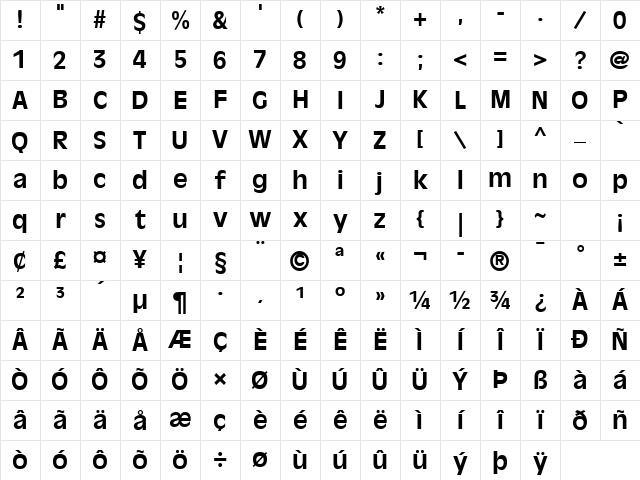
Antique Olive Roman wears its vintage influences proudly, with letterforms that recall mid-century signage, classic packaging, and nostalgia-driven design. Its bold stroke weight gives it real presence on the page.
Font Pairing: Combine Antique Olive Roman with a simple slab or neutral sans - period-accurate companions reinforce the vintage feel without competing for attention.
Pro Tip: Lean into Antique Olive Roman's period character by pairing it with aged paper textures, muted colour palettes, and vintage illustration styles.